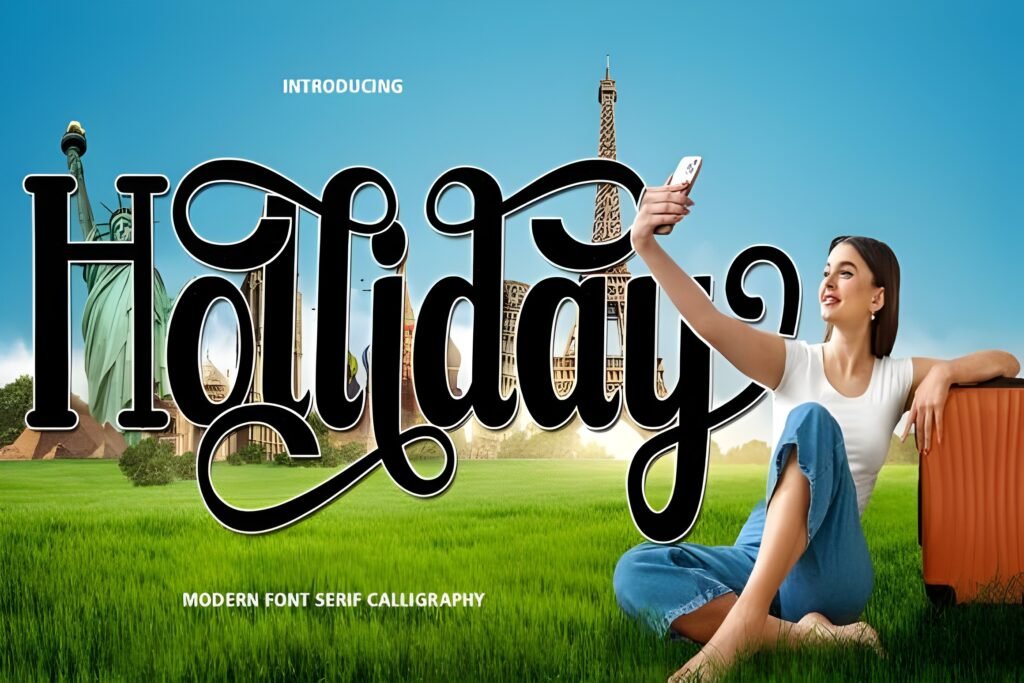
✒️ Holliday Font — Gothic Handwritten Typeface for Tattoos & Bold Design
Holliday Font is a striking addition to the world of Fonts for Tattoos, blending the charm of vintage handwritten typography with a bold gothic edge. Inspired by old‑school lettering styles, this typeface carries a mysterious, dramatic aura that makes it perfect for designs rooted in tattoo culture, horror themes, barbershop branding, and retro packaging.
Its flowing handwritten strokes are balanced with sharp details, giving every word a sense of artistry and individuality. Holliday is not just a font — it’s a statement piece that transforms ordinary text into unforgettable visual art. Whether you’re designing tattoos, alcoholic beverage labels, pomade packaging, posters, apparel prints, or barbershop logos, Holliday adds a unique personality that commands attention.
Key Advantages
- Top Fonts for Tattoos — ideal for names, quotes, and symbolic phrases with gothic flair.
- Vintage handwritten aesthetic — inspired by old typography, perfect for retro and horror‑themed designs.
- Versatile applications — works for branding, packaging, apparel, posters, and lifestyle projects.
- Readable yet decorative — balances clarity with dramatic strokes for professional use.
- Handcrafted feel — adds authenticity and individuality to every project.
With Holliday Font, your words become more than text — they become artistic expressions of mystery, strength, and timeless style. A must‑have typeface for tattoo artists, designers, and creatives who want to merge gothic tradition with modern design impact.